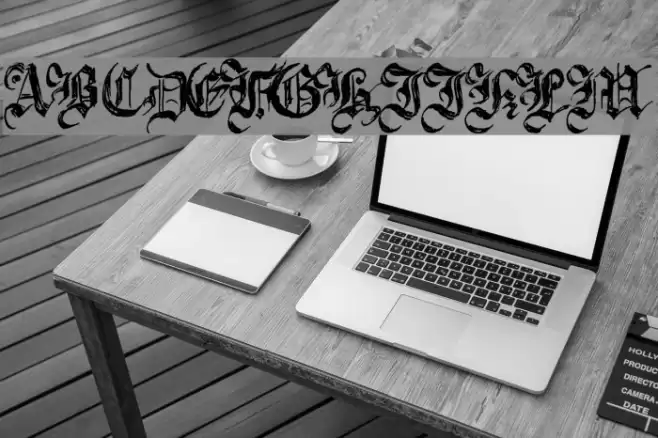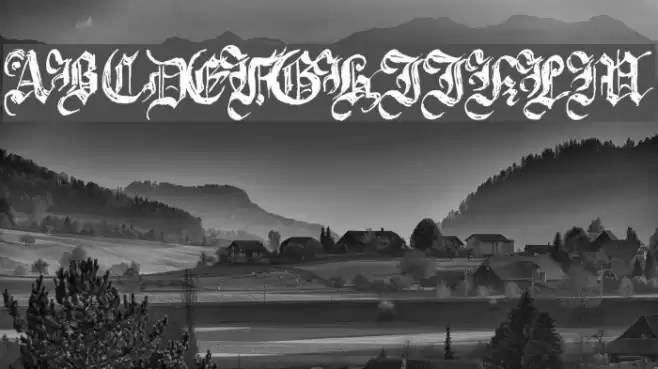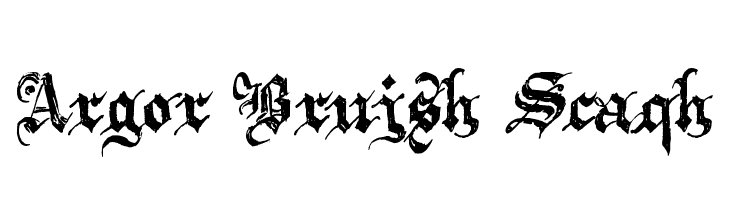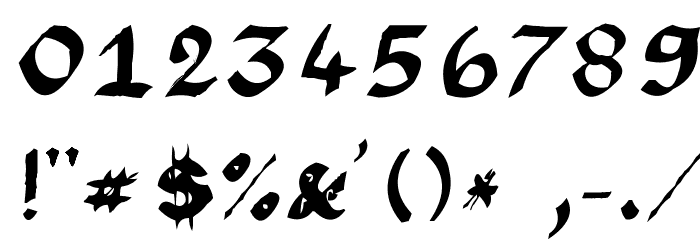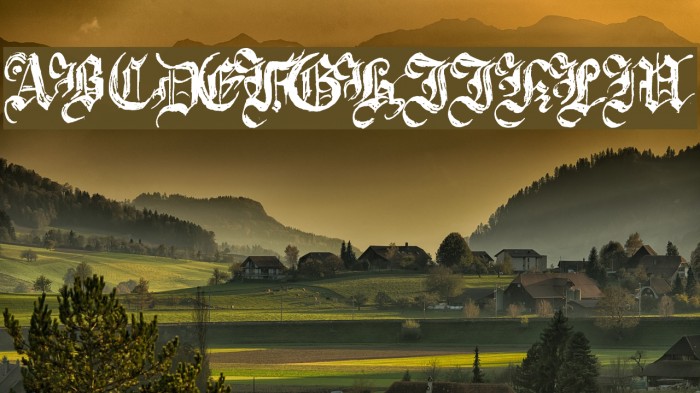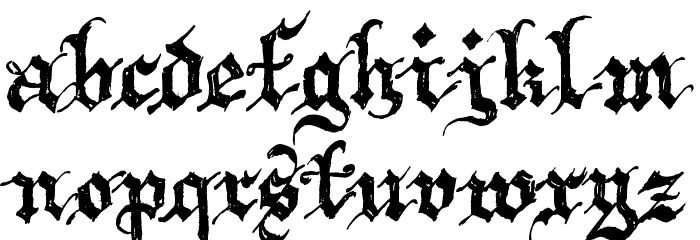
Argor Brujsh Scaqh Font
Argor Brujsh Scaqh Description
This font exhibits a classic blackletter style, characterized by its intricate and ornate letterforms. The uppercase letters are bold and feature sharp, angular lines with elaborate flourishes, giving them a dramatic and historical appearance. The lowercase letters maintain the same level of detail, with a slightly more condensed form, enhancing readability while preserving the decorative essence. Numerals are equally stylized, with a bold presence that complements the overall aesthetic. Special characters are designed with the same attention to detail, ensuring consistency throughout the typeface. This font's unique style evokes a sense of tradition and elegance, making it suitable for projects that require a touch of historical or gothic flair.
A bold, ornate blackletter font with intricate details and a historical aesthetic from Gothic fonts.
- Proposed Projects: Ideal for use in certificates, invitations, book covers, or any design requiring a gothic or medieval touch.
- Overall Style: Vintage
- Use Case: Logos, Headlines, Decorative text